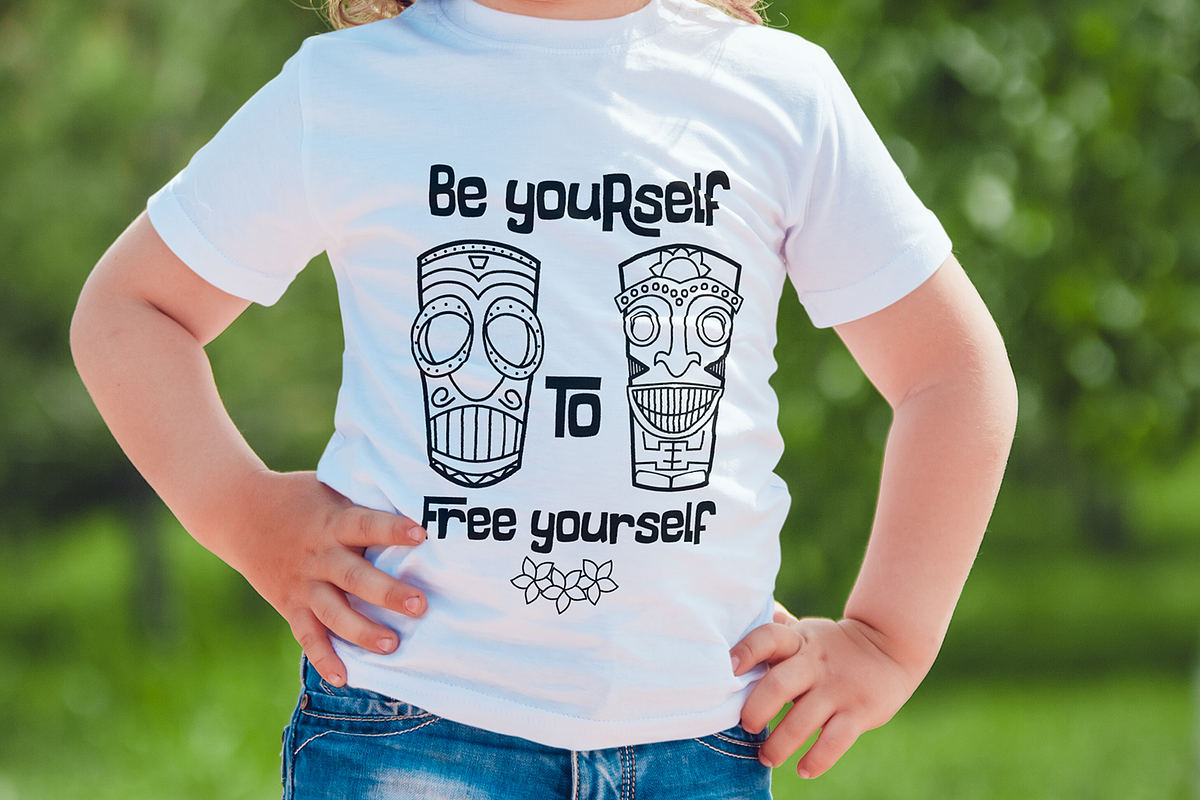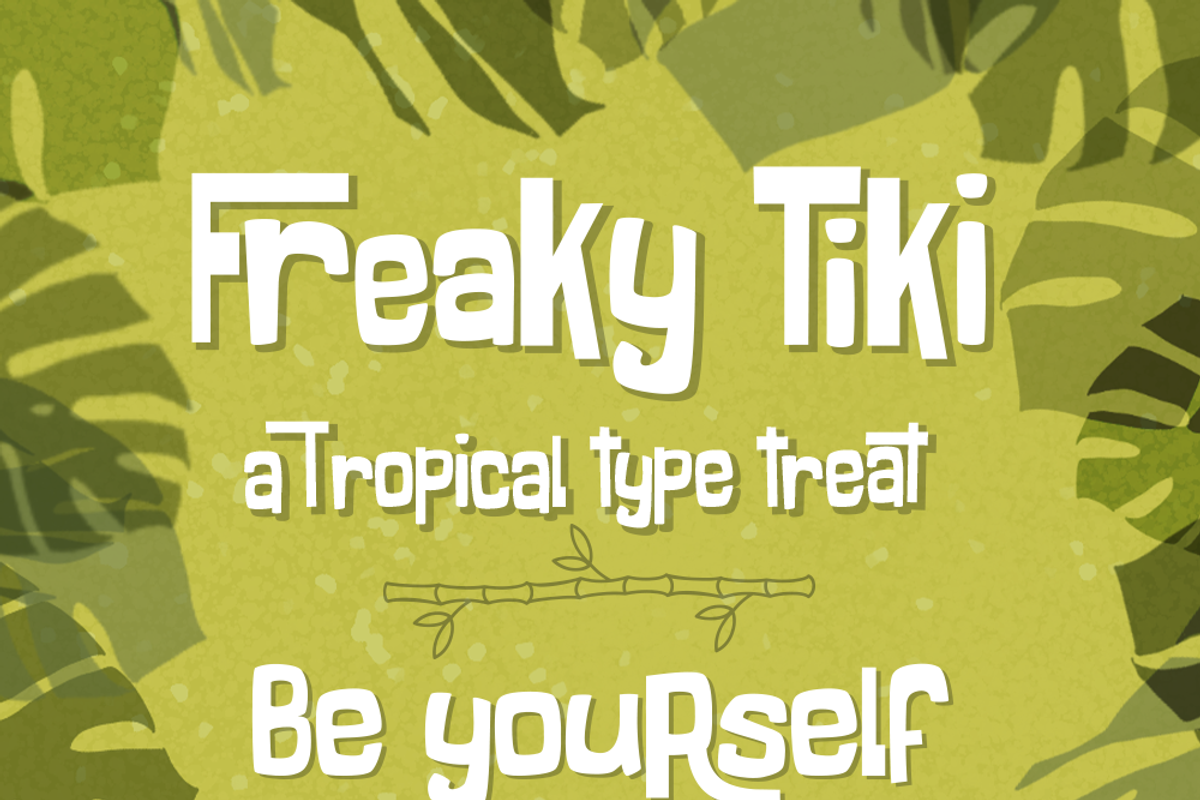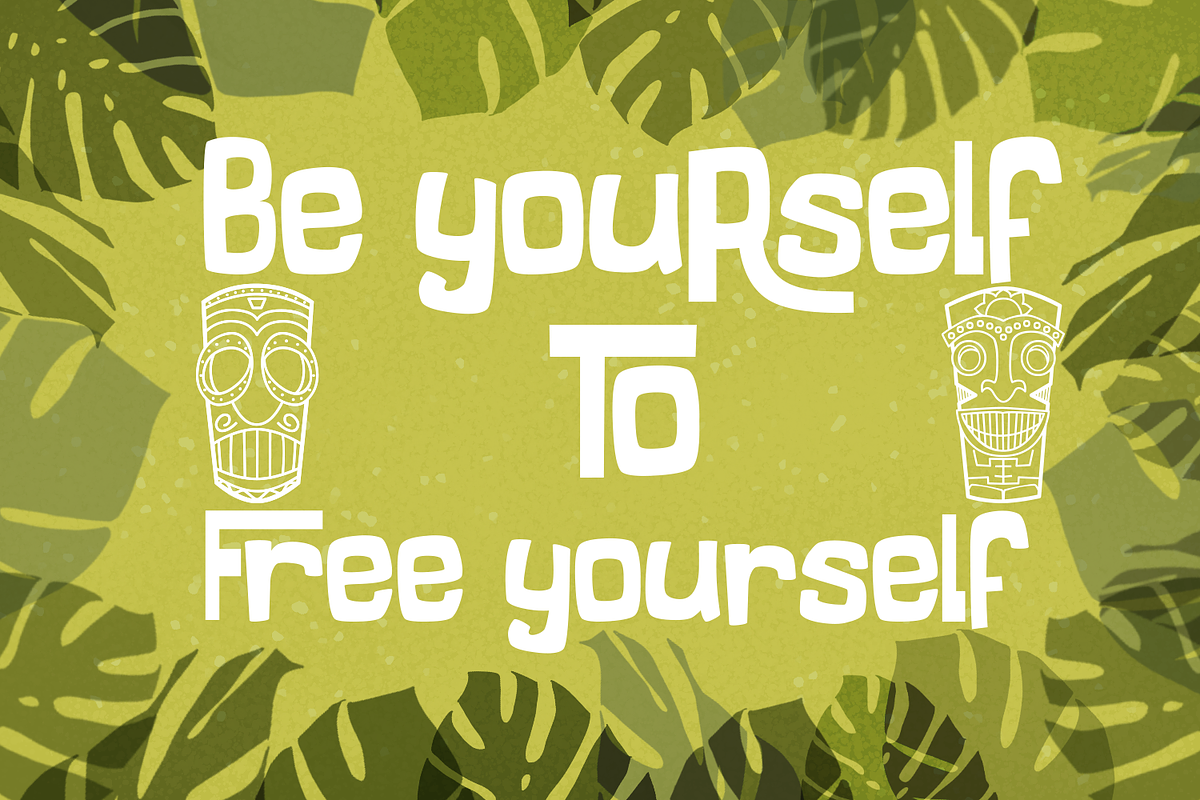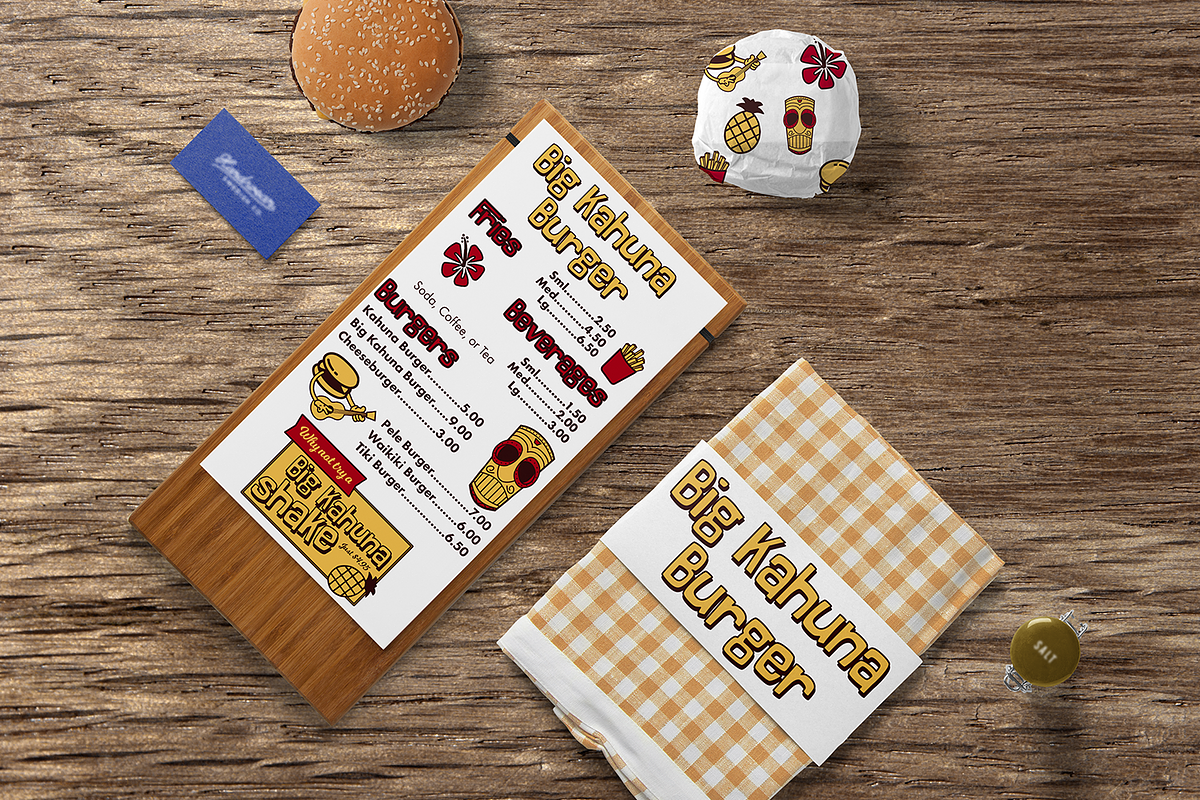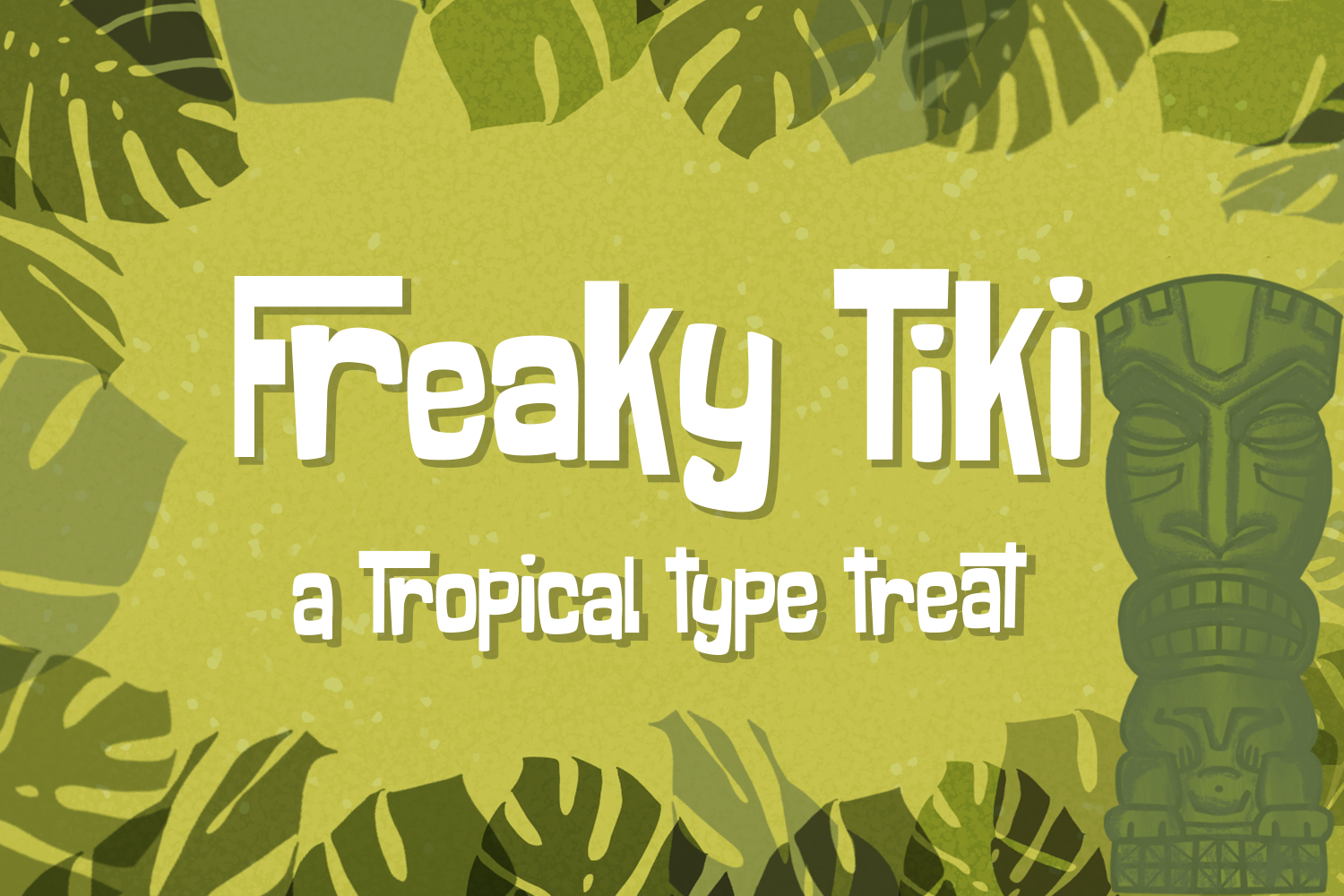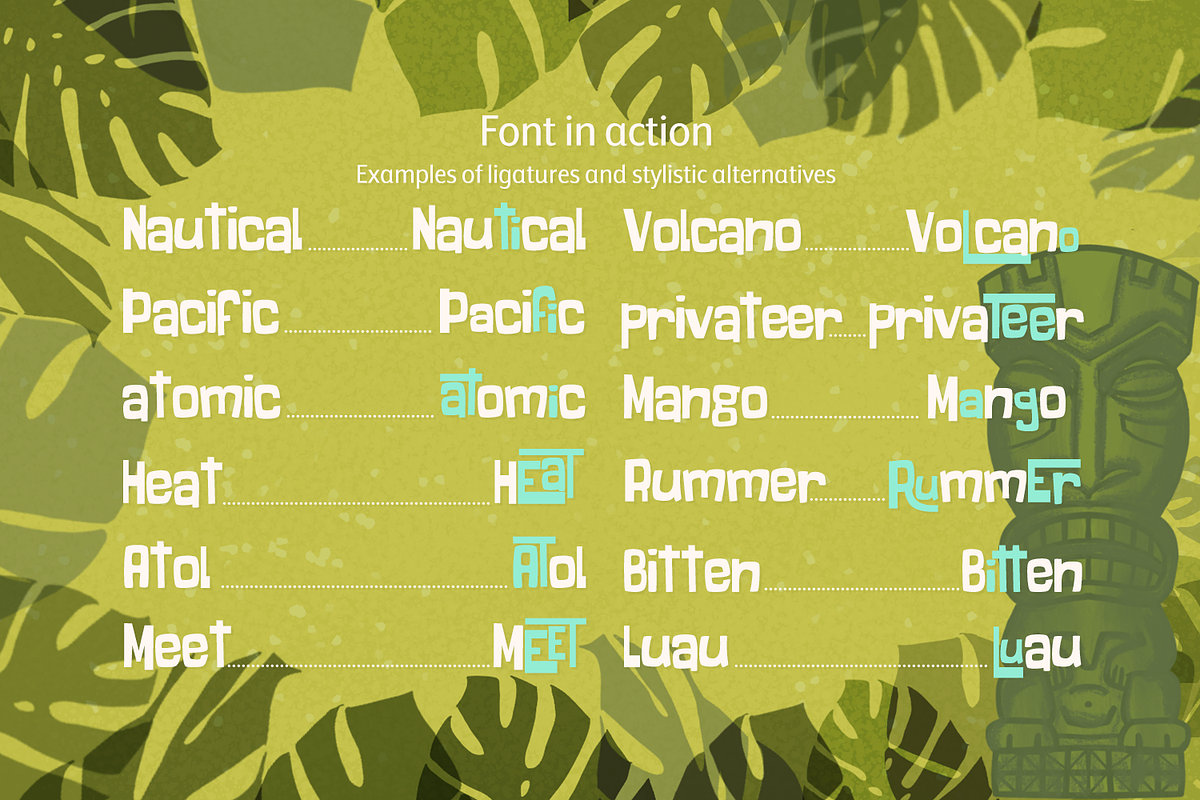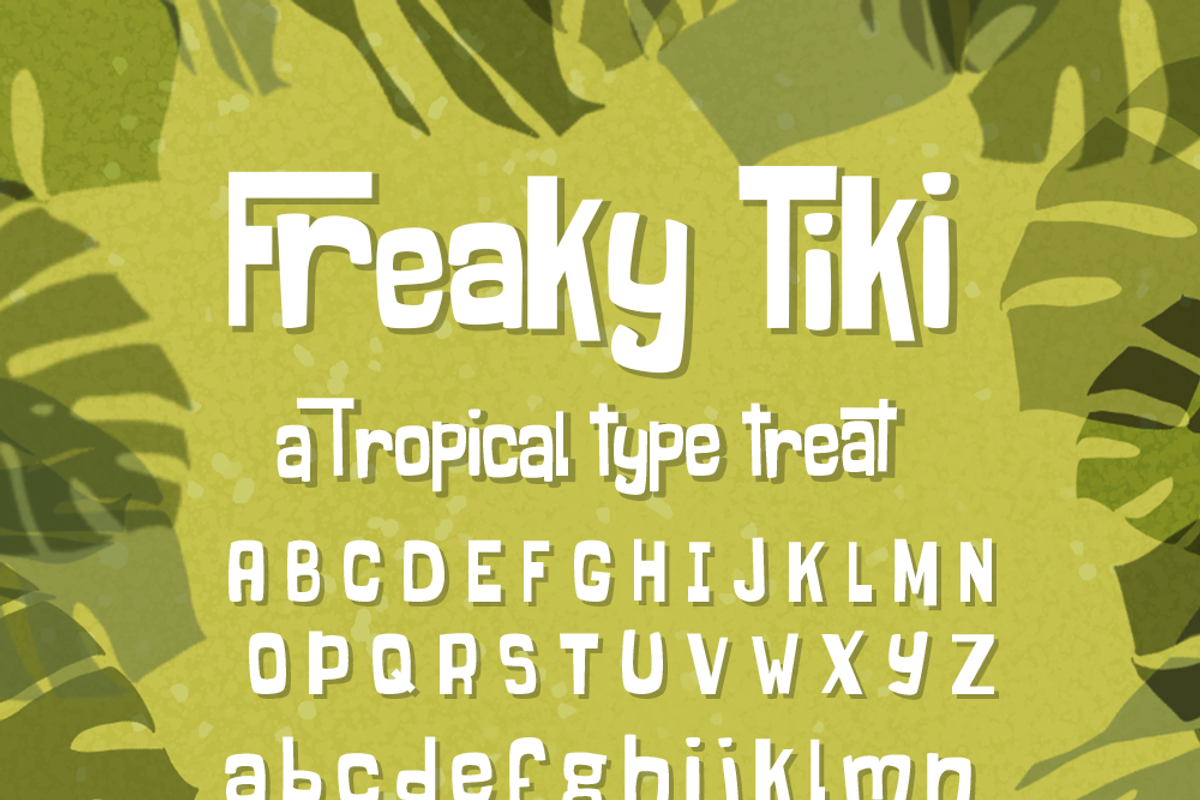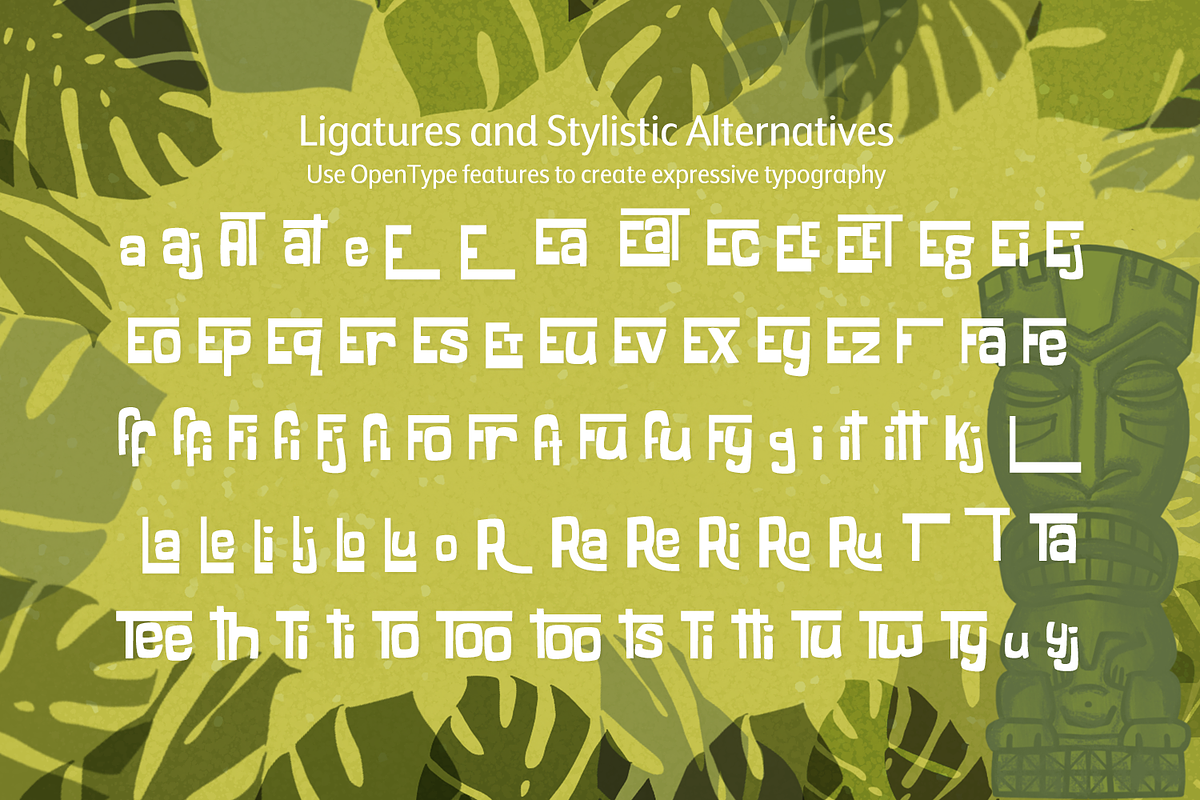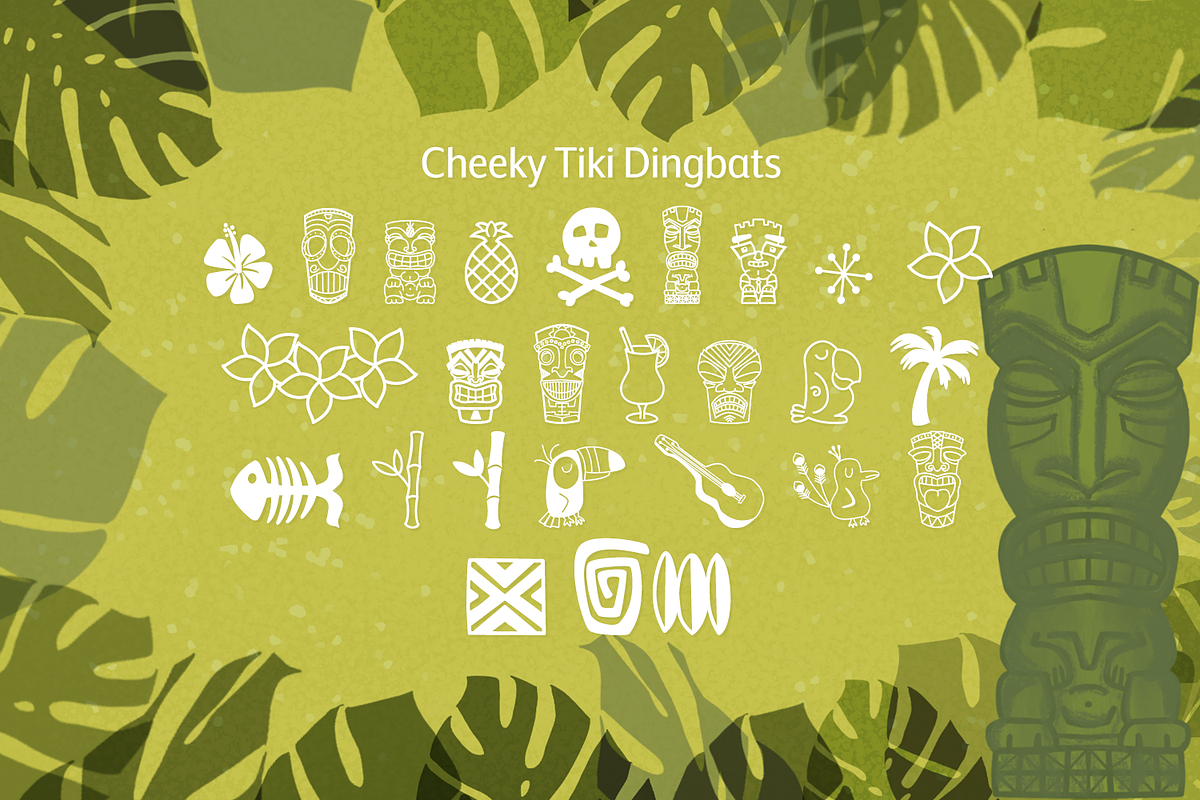
Freaky Tiki Font with Dingbats
Freaky Tiki is a fun font inspired by cartoons and Tiki culture. It is a display type font designed with OpenType features such as ligatures and stylistic alternatives. Use it in your branding, designs or packaging! This font has a total of 425 glyphs which includes 82 ligatures and stylistic alternates.
Cheeky Tiki - a tropical dingbat font! I've included a bonus dingbat font using the characters and illustrations I've drawn in the promotional images. These tropical illustrations, icons, and motifs work perfectly to illustrate or brand invitations, menus, and patterns. Test it out above. 👆